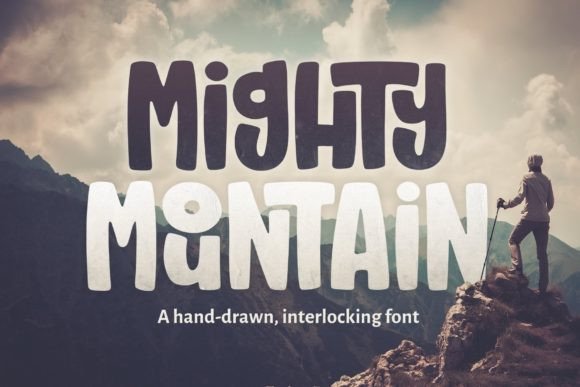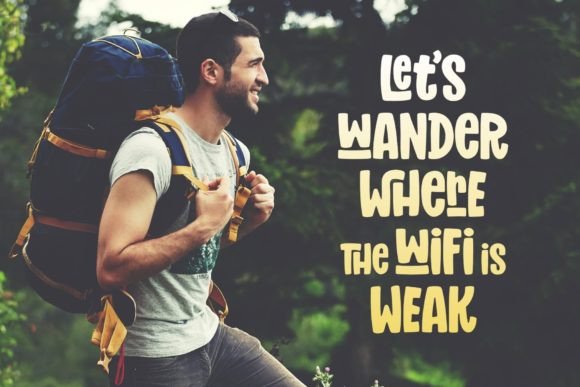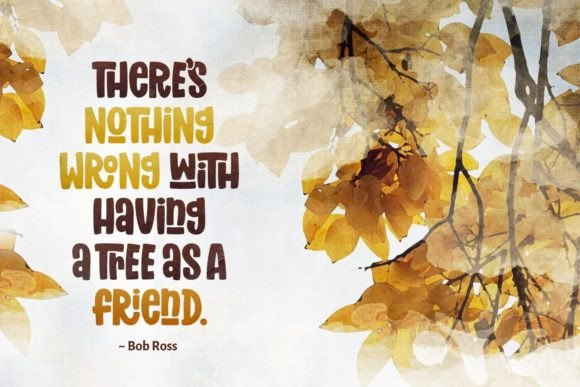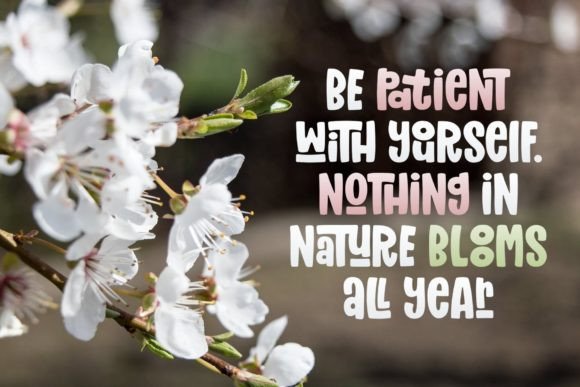
Mighty Mountain Font
About the Mighty Mountain Font
Meet Mighty Mountain Font, a stunning font that brings a touch of elegance and professionalism to any design. Mighty Mountain is a hand-drawn display font that comes with a bunch of interlocking and stacked characters. This font is PUA encoded, which means you can access all of the glyphs and swashes with ease!
Mighty Mountain’s bold, playful character makes it ideal for headlines, posters, and branding projects requiring a strong visual impact. It excels in short, impactful statements, adding a handcrafted, slightly whimsical touch. However, its intricacy makes it unsuitable for body text or UI elements where readability is paramount; long stretches of Mighty Mountain would be visually overwhelming and difficult to read.
Pairing it with a clean sans-serif like Open Sans for body copy creates a balanced contrast, allowing Mighty Mountain’s personality to shine without sacrificing readability. Alternatively, a classic serif like Garamond could add a touch of sophistication, grounding the font’s playful energy. For a more modern feel, consider pairing it with a geometric sans-serif font such as Montserrat.
The font’s hand-drawn quality lends itself well to projects with a rustic, outdoorsy, or adventurous feel. Brands targeting a younger demographic or those seeking a unique, memorable visual identity would find Mighty Mountain a strong asset.
Mighty Mountain Font Usage Examples
Mighty Mountain Font Example